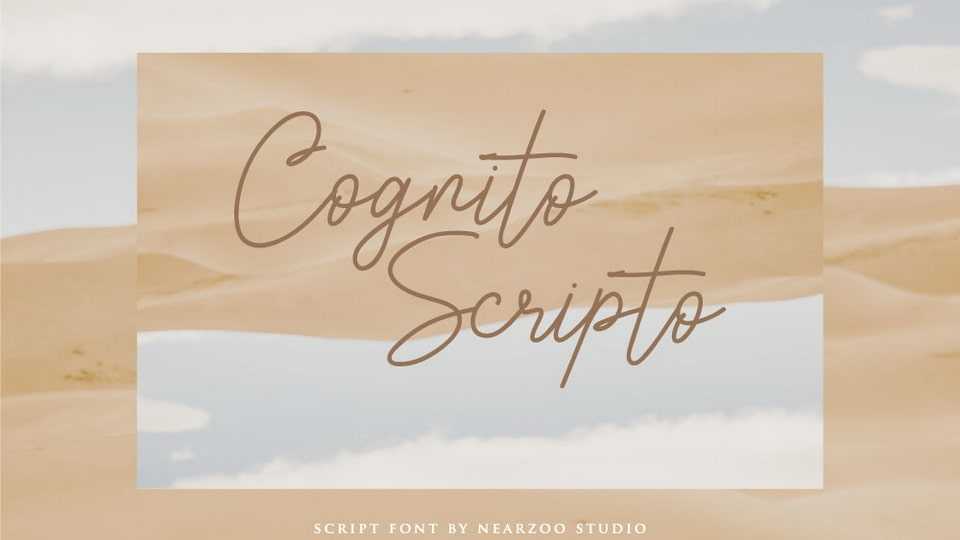
Download Cognito Scripto font, a delicate and vintage styled script typeface. Cognito Scripto is perfect for any branding project such as logos, t-shirt printing, creative products, and more.
Designer: Nearzoo Studio